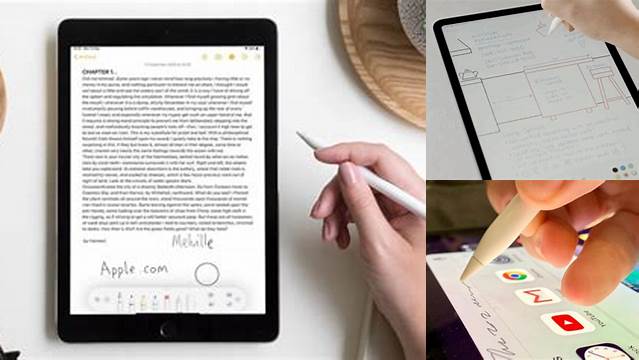
Apple Pencil Scribble Fonts: A Comprehensive Guide
Hey guys! Ever wondered how to make your iPad handwriting look even cooler? Or maybe you're just discovering the magic of the Apple Pencil and Scribble. Well, buckle up because we're diving deep into the world of Apple Pencil Scribble fonts! This feature is a game-changer for note-takers, artists, and anyone who loves the feel of handwriting with the convenience of digital text. We'll explore what Scribble is, how it works, the awesome fonts you can use, and even some tips and tricks to make your handwriting shine.
What is Apple Pencil Scribble?
Let's start with the basics. What exactly is Apple Pencil Scribble? Simply put, it's a fantastic feature on iPadOS that converts your handwriting into typed text in real time. Imagine writing notes, filling out forms, or even composing emails, all with your Apple Pencil, and watching your scribbles magically transform into crisp, digital characters. It's like having a personal handwriting interpreter built right into your iPad! Scribble isn't just about conversion, though. It's about bridging the gap between the natural feel of writing and the efficiency of digital text. You can scratch out words to delete them, circle selections to edit, and even insert new text seamlessly into existing paragraphs – all with your Apple Pencil. It's incredibly intuitive and makes using your iPad with the Apple Pencil feel even more natural and fluid.
The beauty of Scribble lies in its simplicity and integration. It works across a wide range of apps, from Apple's own Notes and Reminders to popular third-party apps like GoodNotes and Notability. This means you can use Scribble wherever you need to write, making it a truly versatile tool for students, professionals, and creatives alike. The underlying technology is pretty impressive too. Apple uses machine learning to recognize your handwriting, adapting to your style and improving over time. This means the more you use Scribble, the more accurate it becomes. It's like your iPad is learning to understand your unique handwriting, which is pretty darn cool. Plus, it supports multiple languages, so you can scribble away in your native tongue and watch it transform into digital text. Whether you're jotting down quick ideas, drafting a detailed report, or simply brainstorming on the go, Scribble makes your Apple Pencil an even more powerful tool for productivity and creativity.
So, how does Scribble work its magic? The process is actually quite straightforward. When you're using your Apple Pencil in a text field, simply start writing. Scribble will automatically detect your handwriting and begin converting it into typed text. The conversion happens in real-time, so you see your words appear on the screen as you write. If you make a mistake, no worries! Just scratch out the word or phrase with your Apple Pencil, and it will disappear. To select text, circle it with your Apple Pencil. This will highlight the selected text, allowing you to copy, paste, or format it as needed. And if you want to insert text, simply tap and hold your Apple Pencil in the desired location, and a space will open up for you to write in. Scribble will automatically adjust the spacing and formatting as you write, ensuring your text flows seamlessly. This intuitive editing functionality is one of the key features that sets Scribble apart. It's not just about converting handwriting to text; it's about providing a natural and efficient way to interact with your digital content.
Exploring Fonts for Apple Pencil Scribble
Now, let's talk fonts! While Scribble itself doesn't directly change your handwriting style into different fonts (it converts handwriting to standard digital fonts), the clarity and legibility of your handwriting definitely play a role in how well Scribble works. Think of it this way: the neater and more consistent your handwriting, the better Scribble can recognize it and convert it accurately. So, in a way, you're choosing your "font" by shaping your handwriting! But, you can change the font of the typed text that Scribble produces. This means that once your handwriting is converted into digital text, you can select it and apply any font available on your iPad. This gives you a ton of flexibility in terms of visual style. You can choose a classic serif font for a professional document, a playful sans-serif font for a casual note, or even a handwritten-style font to maintain a personal touch. The key is to experiment and find fonts that you like and that suit the purpose of your writing.
Different fonts evoke different moods and feelings. A formal font like Times New Roman might be perfect for a research paper, while a more whimsical font like Comic Sans (use with caution!) might be fun for a casual note to a friend. When choosing a font for your Scribble-converted text, consider the overall tone and style you want to convey. Are you writing a professional email? A creative story? A simple grocery list? The font you choose can help to reinforce your message and make your writing more impactful. Beyond the standard fonts that come pre-installed on your iPad, you can also download and install custom fonts from the App Store. There are tons of font apps available, offering a vast library of unique and interesting fonts to choose from. This opens up a whole new world of possibilities for customizing the look and feel of your writing. Whether you're looking for a vintage-inspired font, a futuristic font, or something completely unique, you're sure to find it in the App Store.
While Scribble doesn't directly impact the style of your handwriting, there are definitely ways to improve your handwriting to make it more Scribble-friendly. The clearer and more consistent your handwriting is, the more accurately Scribble will be able to convert it. So, if you're finding that Scribble is misinterpreting your handwriting, try focusing on these key areas: Letter formation: Make sure your letters are clearly formed and distinct from each other. Avoid overly stylized or cursive writing, as this can be more difficult for Scribble to recognize. Spacing: Leave adequate space between your letters and words. Cramped or overlapping handwriting can make it harder for Scribble to distinguish individual characters. Consistency: Try to write consistently in terms of size, slant, and pressure. Inconsistent handwriting can lead to errors in conversion. Practice: Like any skill, handwriting improves with practice. The more you use Scribble, the more you'll get a feel for how it interprets your handwriting, and the better you'll become at writing in a Scribble-friendly style.
Tips and Tricks for Optimizing Your Apple Pencil Scribble Experience
Okay, let's get into some pro tips for making the most of Apple Pencil Scribble! We've covered the basics, but there are a few extra tricks up our sleeves to help you optimize your experience and become a Scribble master. First up, let's talk about language settings. Scribble supports multiple languages, but you need to make sure your iPad is set to the correct language for your handwriting. To check your language settings, go to Settings > Apple Pencil > Scribble and make sure the correct language is selected. This will ensure that Scribble accurately recognizes your handwriting in your chosen language. Another key tip is to experiment with different writing styles. As we mentioned earlier, the clearer and more consistent your handwriting, the better Scribble will work. But don't be afraid to try different approaches to see what works best for you. Some people find that writing in print is more accurate, while others prefer a modified cursive style. The key is to find a style that is both comfortable for you and easy for Scribble to recognize. Remember, Scribble learns and adapts over time, so the more you use it, the better it will become at understanding your unique handwriting.
Mastering the editing gestures in Scribble is crucial for efficiency. We've already touched on the basics – scratching out to delete, circling to select, and tapping and holding to insert. But there are a few more advanced gestures you should know. For example, you can draw a vertical line between letters to insert a space, or draw a line through a word to delete it entirely. You can also use the "undo" and "redo" gestures to quickly correct mistakes. To undo an action, swipe left with two fingers. To redo an action, swipe right with two fingers. These gestures can save you a lot of time and effort when editing your Scribble-converted text. Another important aspect of optimizing your Scribble experience is choosing the right apps. While Scribble works across a wide range of apps, some apps are better suited for handwriting and note-taking than others. Apple's Notes app is a great option for basic note-taking and brainstorming. For more advanced features, such as handwriting recognition, audio recording, and PDF annotation, you might want to consider third-party apps like GoodNotes or Notability. These apps are specifically designed for use with the Apple Pencil and offer a range of tools and features to enhance your handwriting experience. Consider exploring different apps to find the one that best suits your needs and workflow.
Finally, don't underestimate the power of practice. Like any skill, mastering Scribble takes time and effort. The more you use it, the more comfortable you'll become with the gestures and the more accurately Scribble will recognize your handwriting. Set aside some time each day to practice your handwriting with Scribble. Try writing different types of content, such as notes, emails, or even journal entries. Experiment with different writing styles and fonts to see what works best for you. And don't be afraid to make mistakes! Mistakes are a natural part of the learning process. The important thing is to keep practicing and keep experimenting. With a little bit of practice, you'll be able to unlock the full potential of Apple Pencil Scribble and transform your iPad into a powerful handwriting tool. So, grab your Apple Pencil, fire up your iPad, and start scribbling! You might be surprised at how much you enjoy the experience.
The key takeaway here is that while Scribble doesn't directly let you choose fonts for your handwriting style, it emphasizes the importance of clear, legible handwriting. The better your handwriting, the more accurately Scribble can convert it to digital text. And once your handwriting is converted, you have the flexibility to choose from a vast array of fonts to style your text to your liking. So, in a way, you're choosing your "handwriting font" by practicing and refining your penmanship! But beyond the technical aspects, Scribble is about more than just converting handwriting to text. It's about capturing the essence of your thoughts and ideas in a natural and fluid way. It's about preserving the personal touch of handwriting in a digital world. It's about making technology feel more human and intuitive. Whether you're a student taking notes in class, a professional drafting a presentation, or an artist sketching a masterpiece, Scribble can enhance your workflow and bring your ideas to life. So, embrace the power of Apple Pencil Scribble, experiment with different writing styles and fonts, and discover the joy of handwriting on your iPad. You might be surprised at how much you love it!